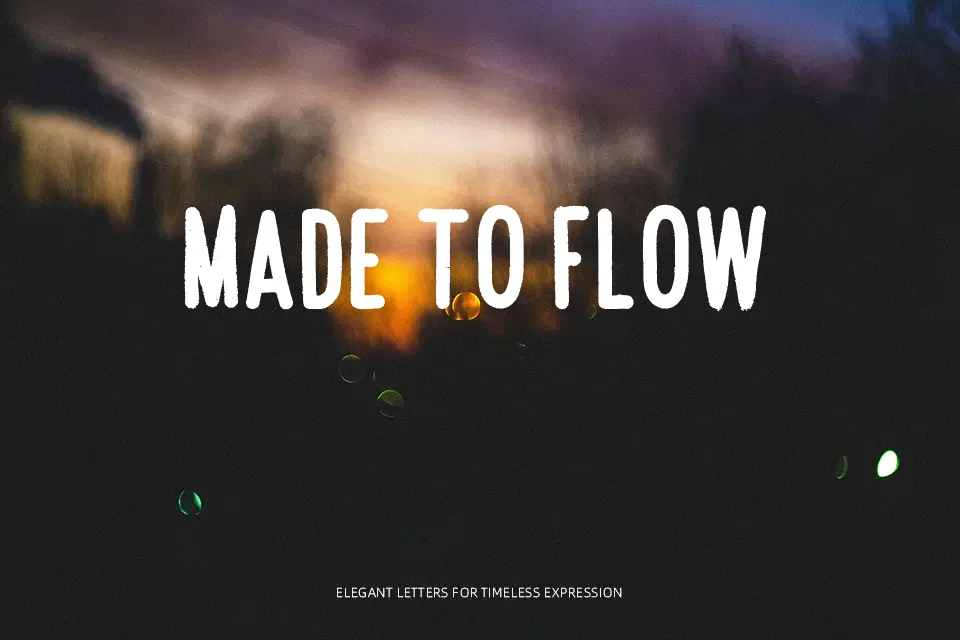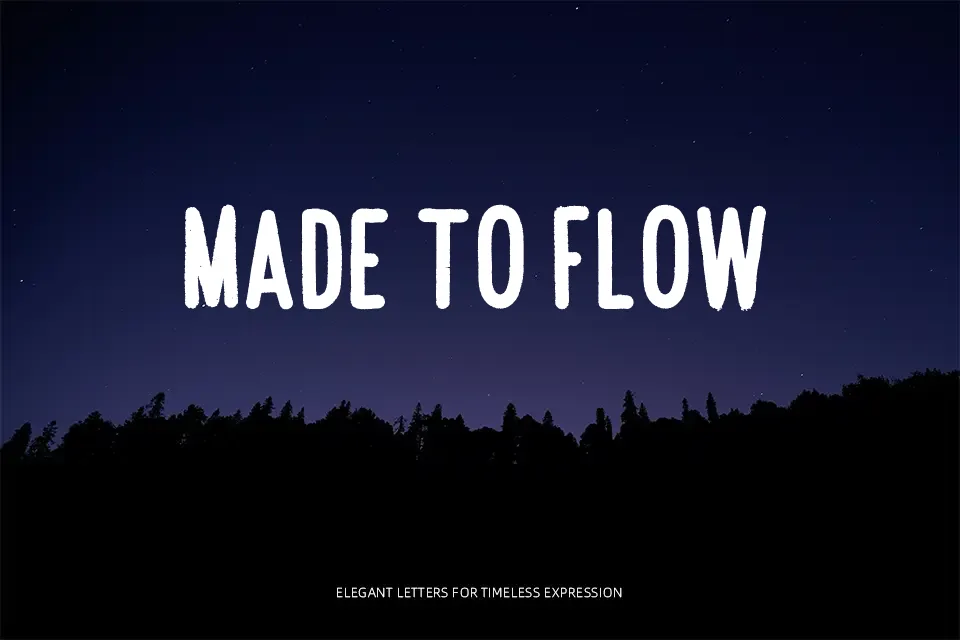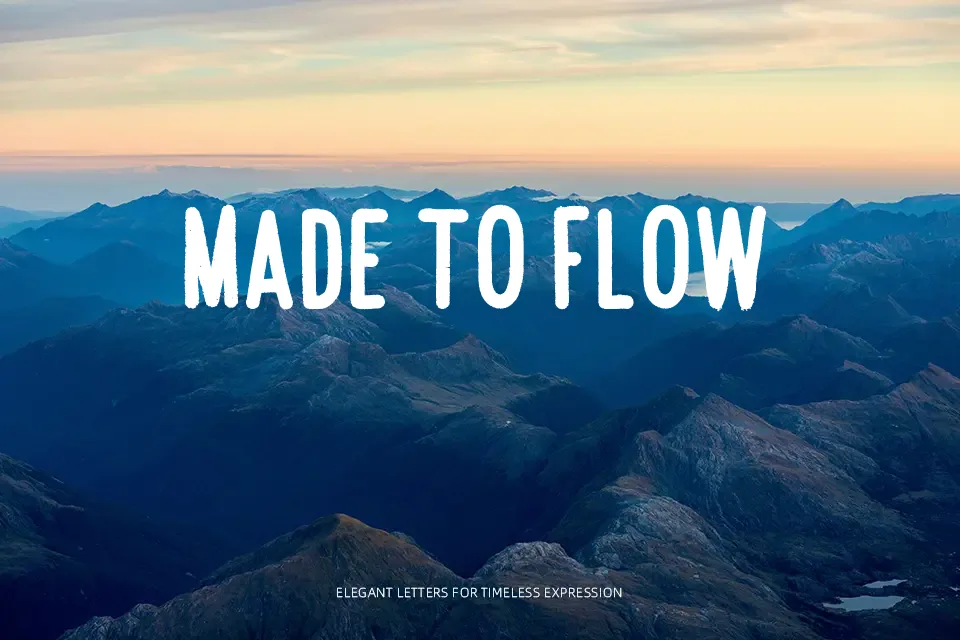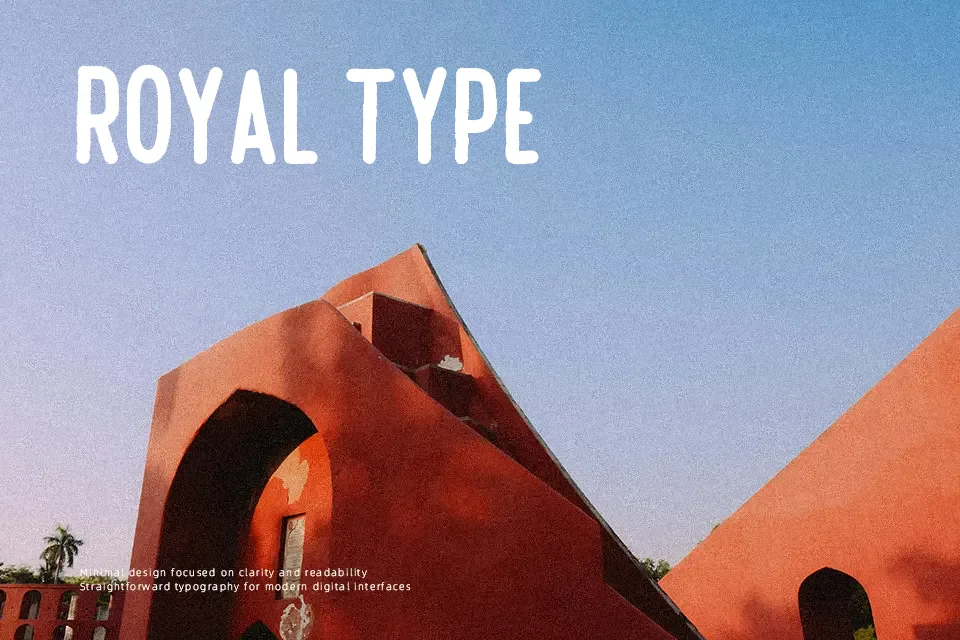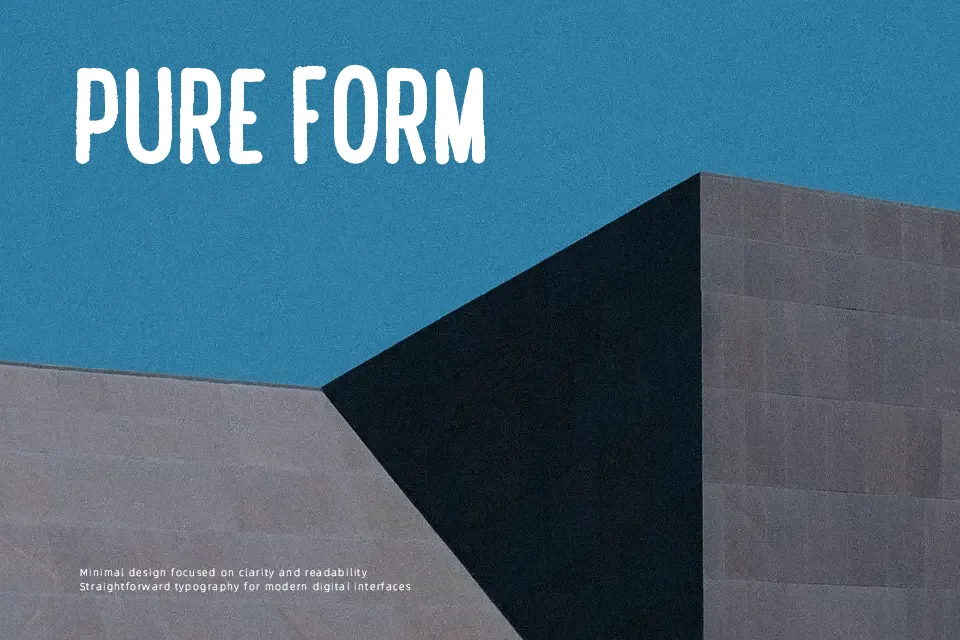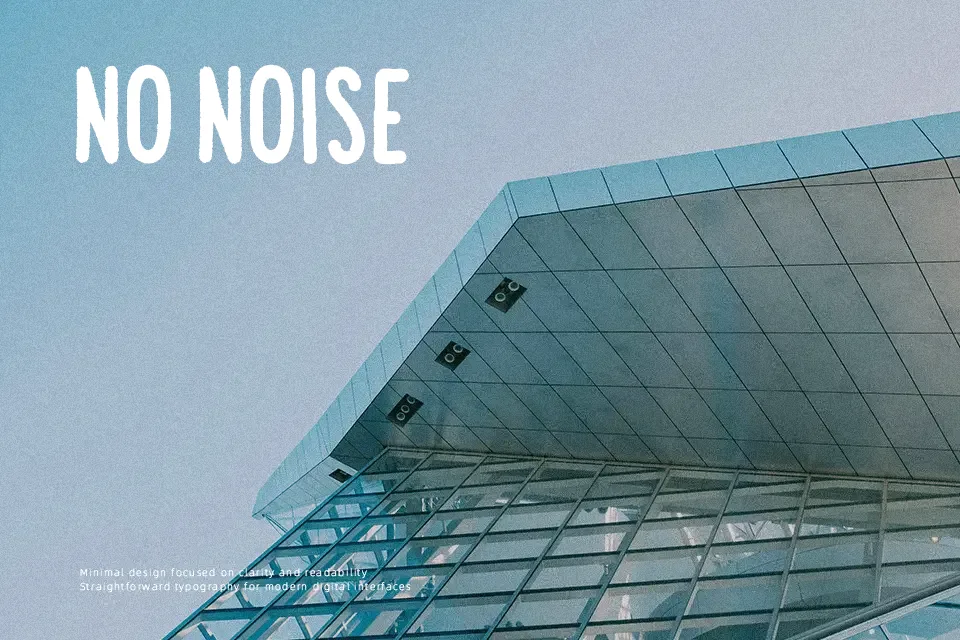
Café Françoise Font
Designed by Sharkshock
Café Françoise is a casual, eroded display script built to resemble chalk strokes on a blackboard, with irregular outlines, light texture, and narrow, upright forms that keep lines compact. Strokes feel informal and organic, but spacing stays controlled enough for short paragraphs on menus or signage. It shines when you need headings for cafe menus, bakery packaging, coffee-shop logos, or posters that suggest a relaxed European street scene. For dense body copy, minimalist tech branding, or very small text, the erosion and handwritten quirks can become distracting, so it works best as an accent or headline voice rather than the only typeface in a layout.
chalk-style cafe menus and boards
bakery or coffee-shop logos and packaging
restaurant posters and social media graphics
cozy food and drink branding
long body text or detailed articles
minimalist tech or corporate branding
very small captions or UI elements
highly formal documents
Perfect for branding, logo, and poster, with a artistic and decorative style.